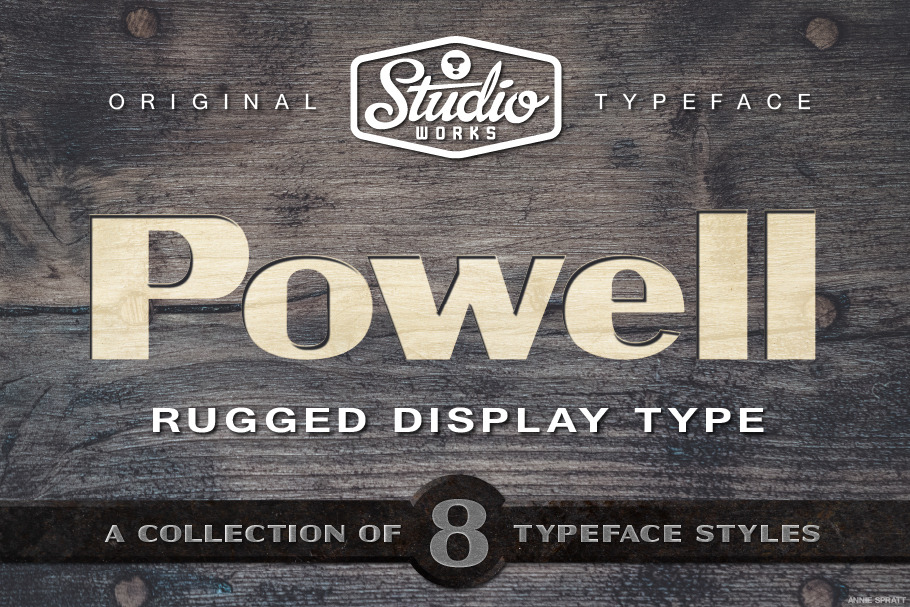
Powell | Rugged Display Typeface
Studioworks proudly presents •• P O W E L L •• — a rugged collection of display typefaces named for the famed geologist and explorer of the Great American West, John Wesley Powell. Sturdy strokes with subtle contrast make Powell a remarkable choice for authoritative headings and titles where a heavy sans serif would feel too contemporary.
- EIGHT different type styles (regular, rough, outline and stamp both upright and italic)
Consider Powell for use in logos, posters, book covers and signage — or any design that requires a hint of gallant tradition. Have a design where more distress is desired? Take full advantage of Powell Rough and Powell Stamp. Need something a little lighter and more modern? Use Powell Outline. All upright character sets come paired with an italic complement for emphasis where needed.